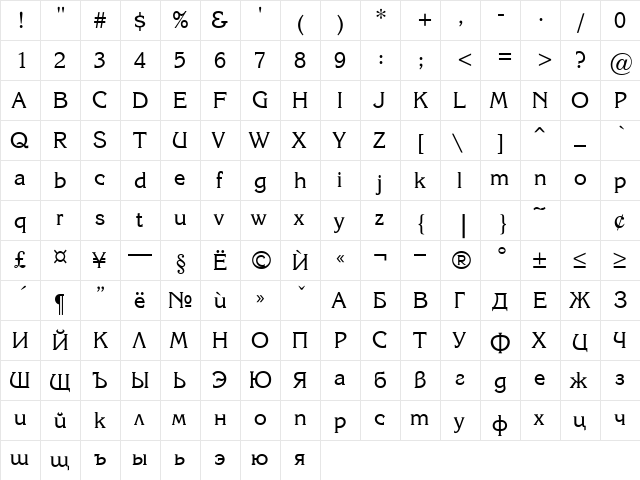
Karina Normal
Design Context for Karina Typeface
Karina takes a measured approach to typography — its balanced proportions and neutral character make it a reliable workhorse for both digital and print work.